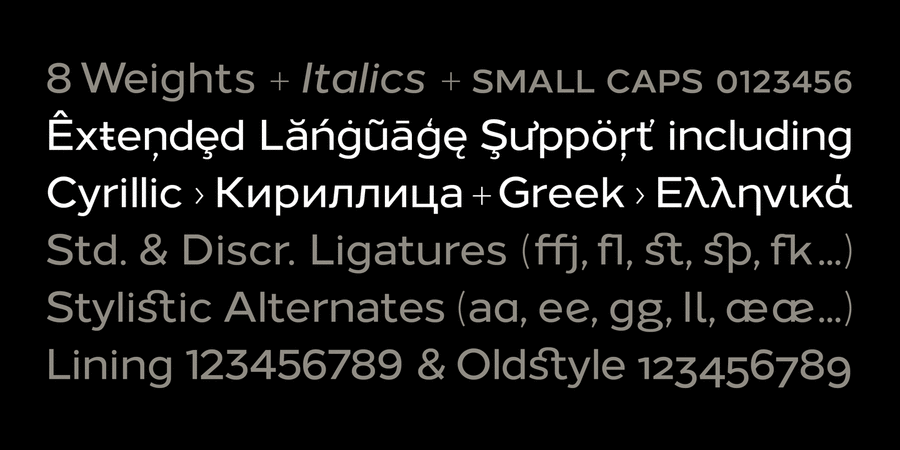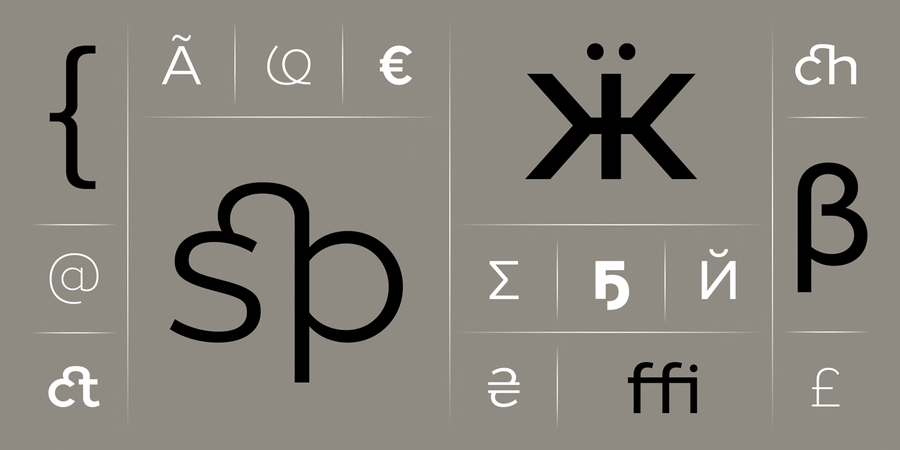
Loew Next (16 fonts)
16 font styles
About Loew Next is the modern, honest and straightforward go-to sans serif type family aimed at a global user. Painstakingly reworked from the original design (Loew) to further enhance the consistency of detail between individual weights and improve its compatibility to support non-latin script languages. Details include over 800 characters with italics, alternative lowercase a, e, g and l. Seven variations of numerals, small caps with accents, Opentype features inferiors, superiors, fractions and language support covering Cyrillic, Greek, Western, South and Central Europe. Designed by Jonathan Hill in 2018. Loew Next™ is a trademark of The Northern Block.
Features of font family Loew NextThe hit of the decade:
Loew Next supports 101 LanguageUkrainian, English, German, Polish, Portuguese, Spanish, Kazakh, French, Greek (modern), Vietnamese, Russian, Czech, Dutch, Italian, Swedish, Turkish, Finnish, Belarusian, Greek, Tatar, Serbian, Bulgarian, Estonian, Lithuanian, Albanian, Afrikaans, Basque, Breton, Valencian, Galician, Gaelic (Scottish), Danish, Indonesian, Irish, Icelandic (Win), Karakalpak, Catalan, Norwegian, Occitan, Rhaeto-Romance, Sami Lule, Tswansky, Uzbek (Lat.), Faroese, Frisian, Chamorro, Estonian (Win), South Sami, Albanian (Win), Hungarian, Upper leprechauny, Karelian, Latvian (Mac), Lithuanian (Mac), Maori (Mac), Moldovan (Lat.), Lower Sorbian, Romanian (Win), Slovak, Slovenian, Turkmen (Lat.), Croatian (Win), Estonian (Mac), Kurdish, Latvian, Maori, Romanian, Abazin, Avar, Agul, Adyghe, Darginsky, Ingush, Kabardino-Circassian, Kabardian, Karachay-Balkar, Kumyk, Lak, Lezghian, Macedonian, Mordovian-Moksha, Mordovian-Erzya, Nogai, Rutulian, Tabasaran, Tatar, Tsakhur, Chechen, Azerbaijani (Cyrillic), Bashkir, Buryat, Dungan, Kalmyk, Kirghiz, Mongolian (Cyrillic), Tajik, Talysh, Tuvan, Turkmen (Cyrillic), Uzbek (Cyrillic), Uighur Functions of font family Loew NextTypeface use in layout:
Associations for font family Loew NextTypeface personality and character:
minimalistic, crisp, delicate, clean, easy, chilly, fashionable, thin, modern, laconic, clear, flat, high-quality, weightless, transparent, logical, accurate, air, glass, wire, urban, static, popular, fresh, globalized, globalistic, fragile, cold, simple, solid, available, elementary, correct, strict, serious, stable, independent, responsible, west, business, calm, schematic, engineering, neutral, moderate, standard, inexpressive, universal, clever, low key, indifferent, mandatory, strong, convincing, urbanistic, reliable, significant, reputable, heavy, important, rude, motivating, self-assured, powerful, iron, steel, loud, durable, manly, cutting, workman, industrial, severe, technical, formidable, splashy, notable, dense, active, bright, machine, technogenic, tough, ambitious, close-fitting, black, urgent, persistent
perfumery, Eau de Toilette, shampoo, cosmetics, fashion, innovations, diet, design, hygiene, purity, city, device, society, airport, Metro, navigation, architecture, science, clothes, advertising, store, medicine, footwear, scheme, engineer, mathematics, chemistry, physics, water, transport, medicines, business, retail, constructor, money, bank note, coworking, education, equipment, coin, logistics, pharmacy, urban studies, Toothpaste, news, bus, technology, tool, machine tool, fuel, energy industry, steel-maker, motor, engine, industry, building, mechanical engineering, security, fitness equipment, truck, trucker, power station, factory, brick, port, safe, repairs, protection, construction, excavator, workman Typeface associated with age: